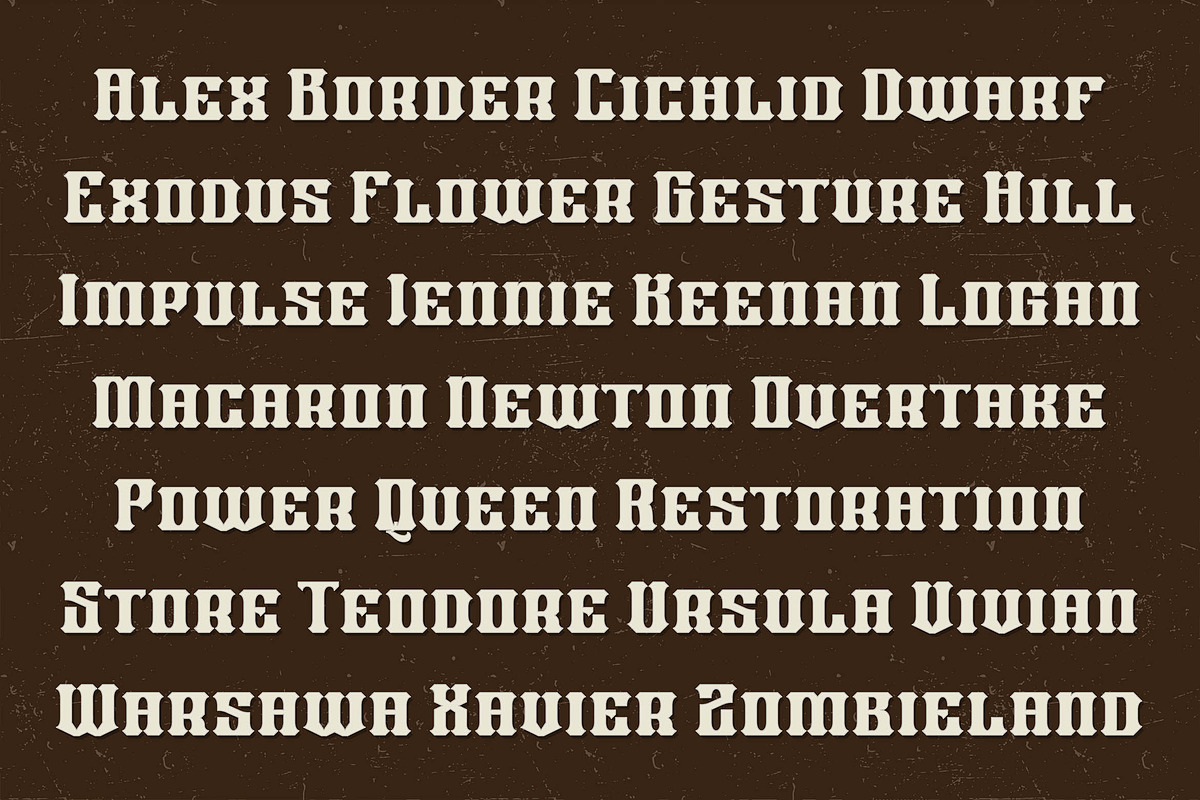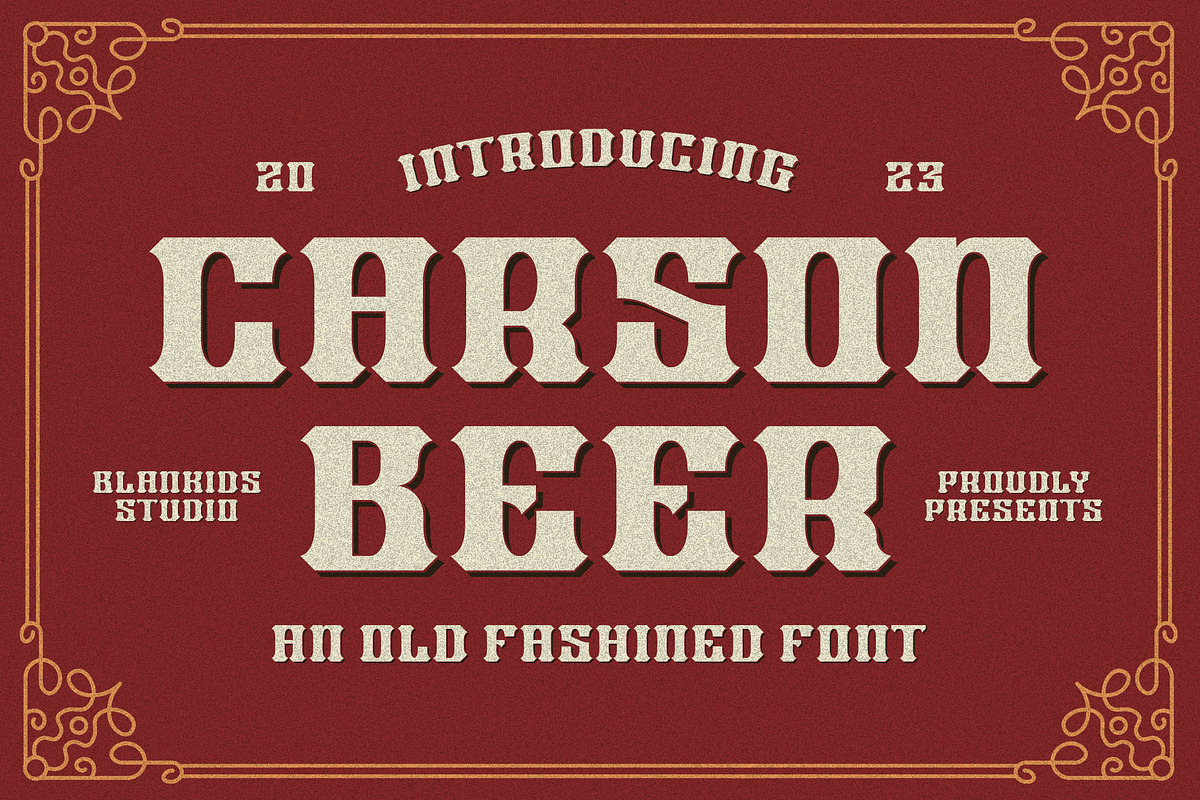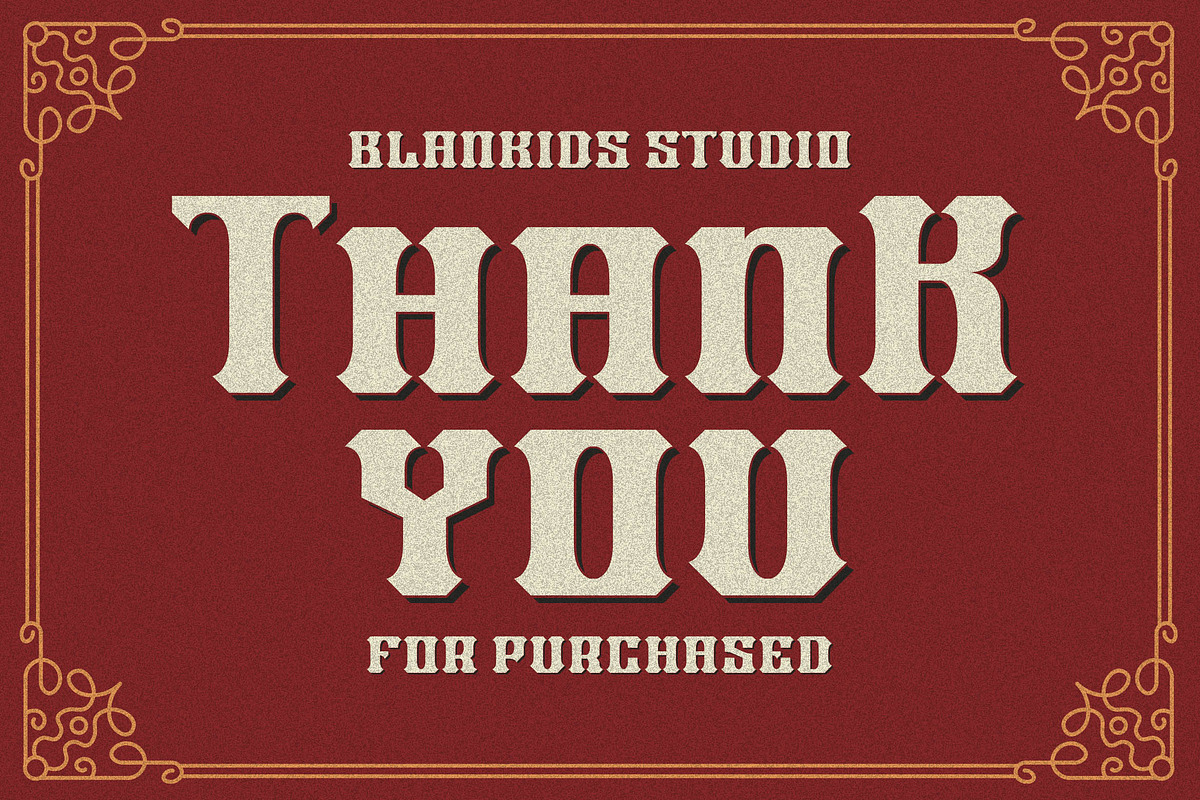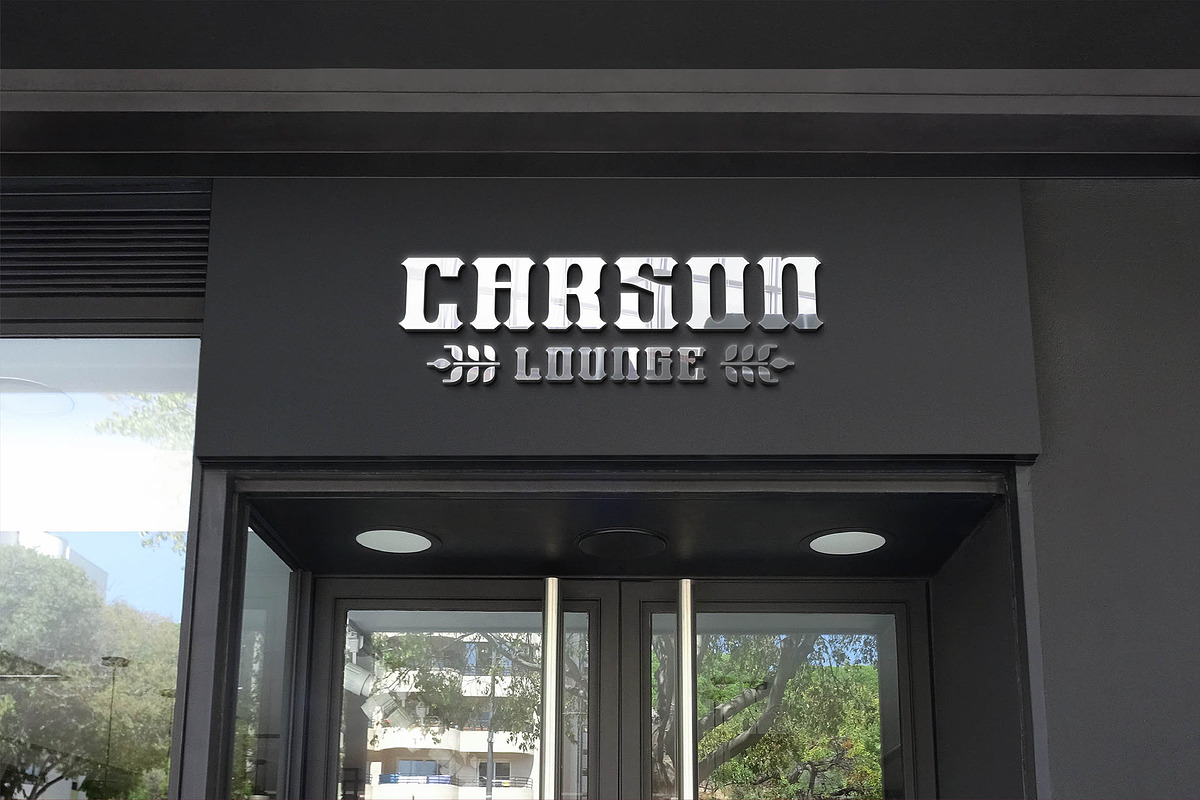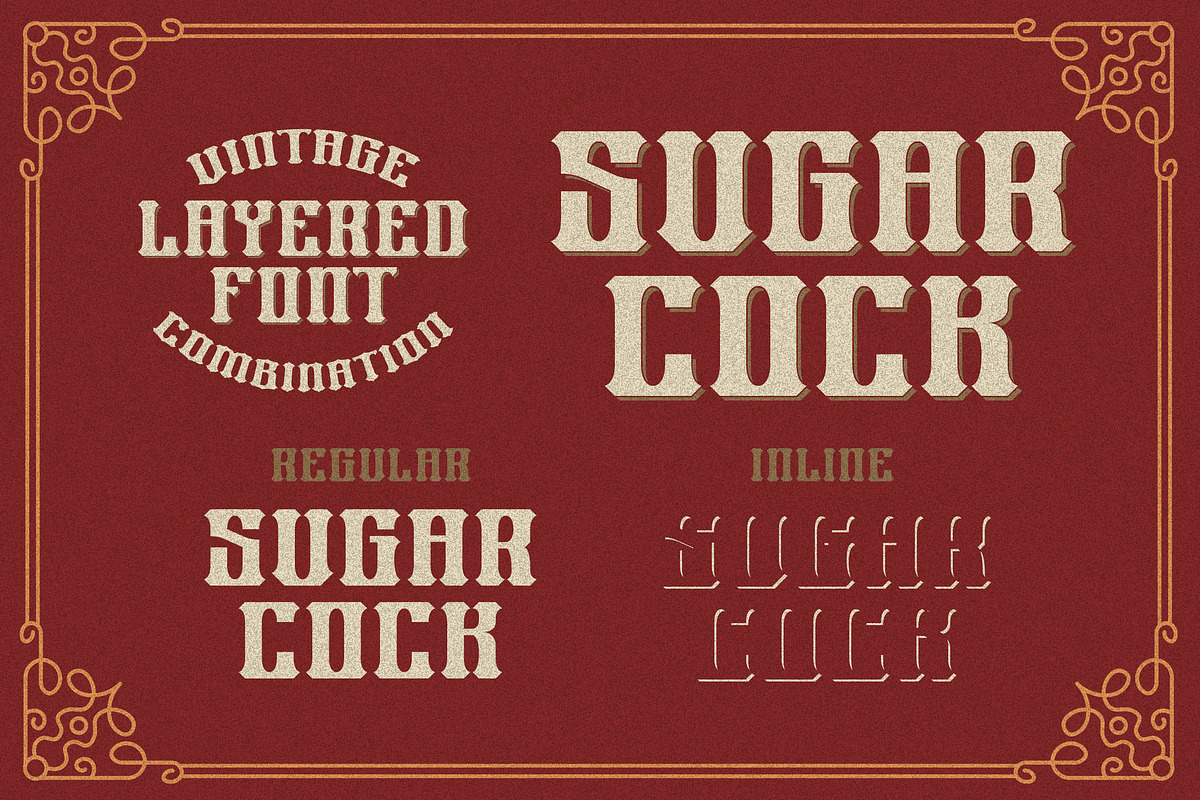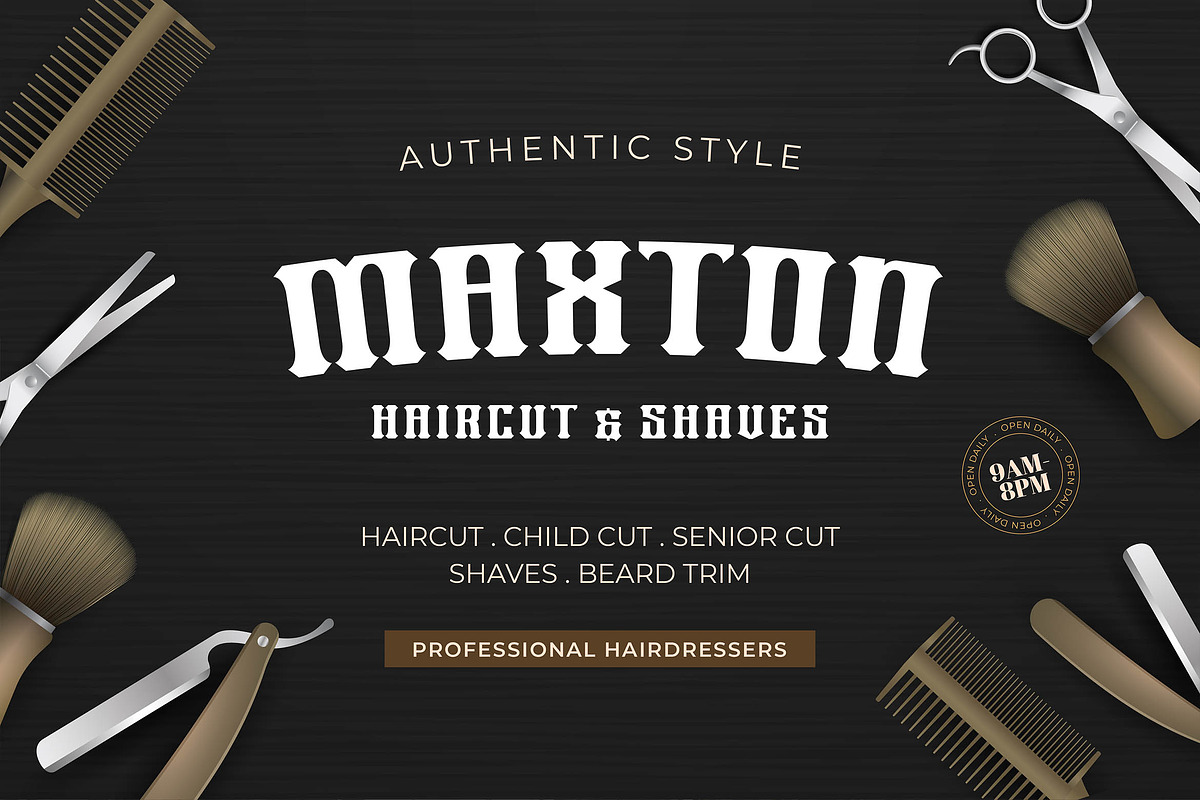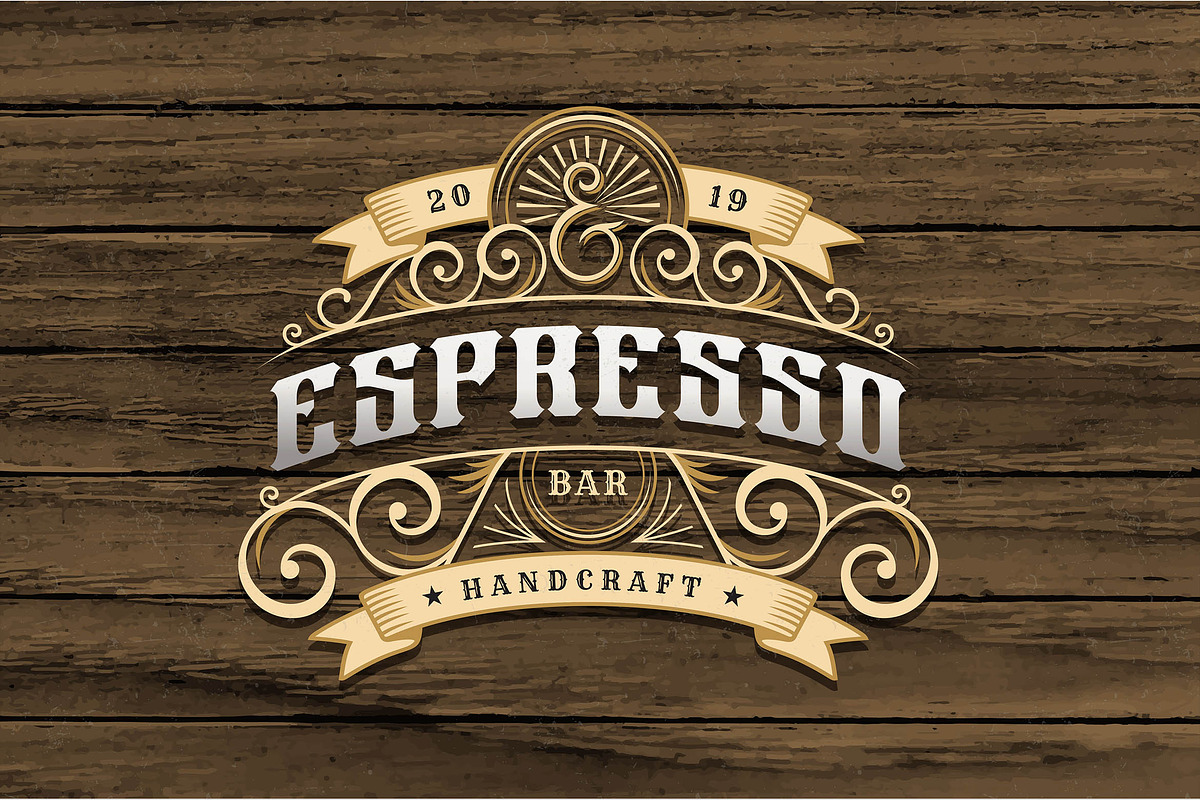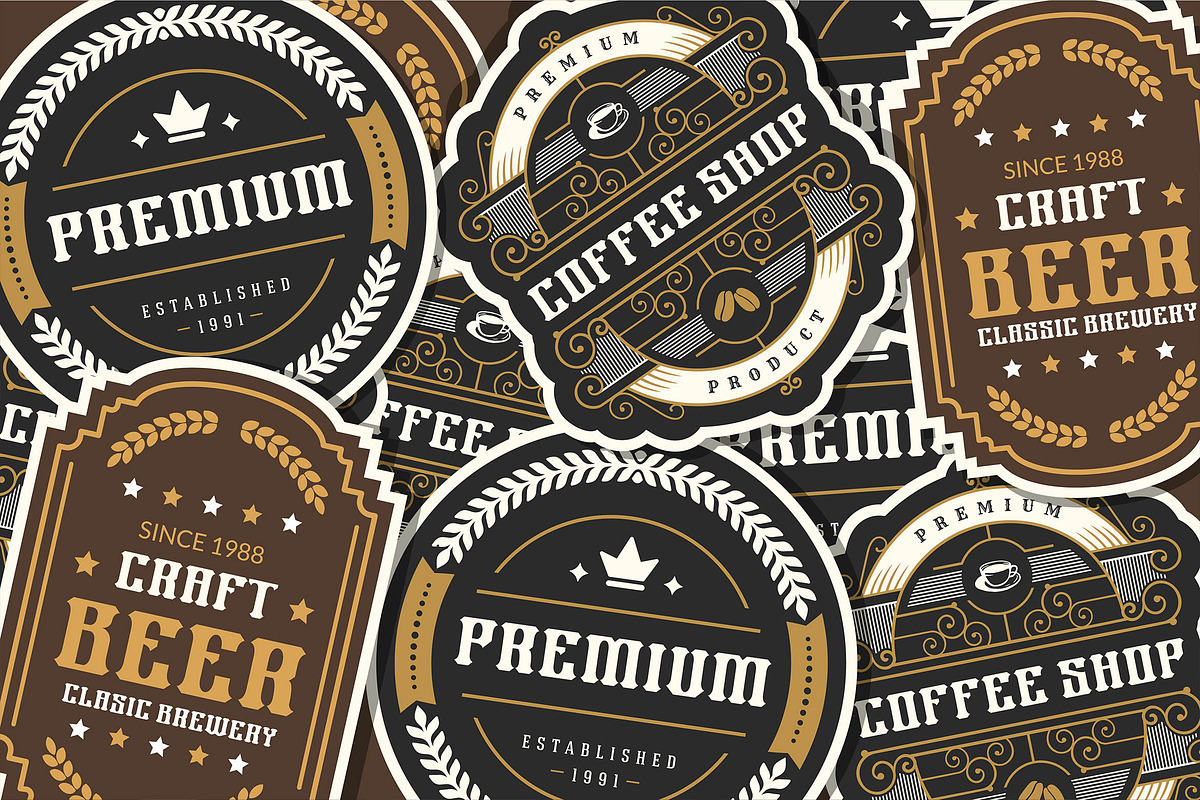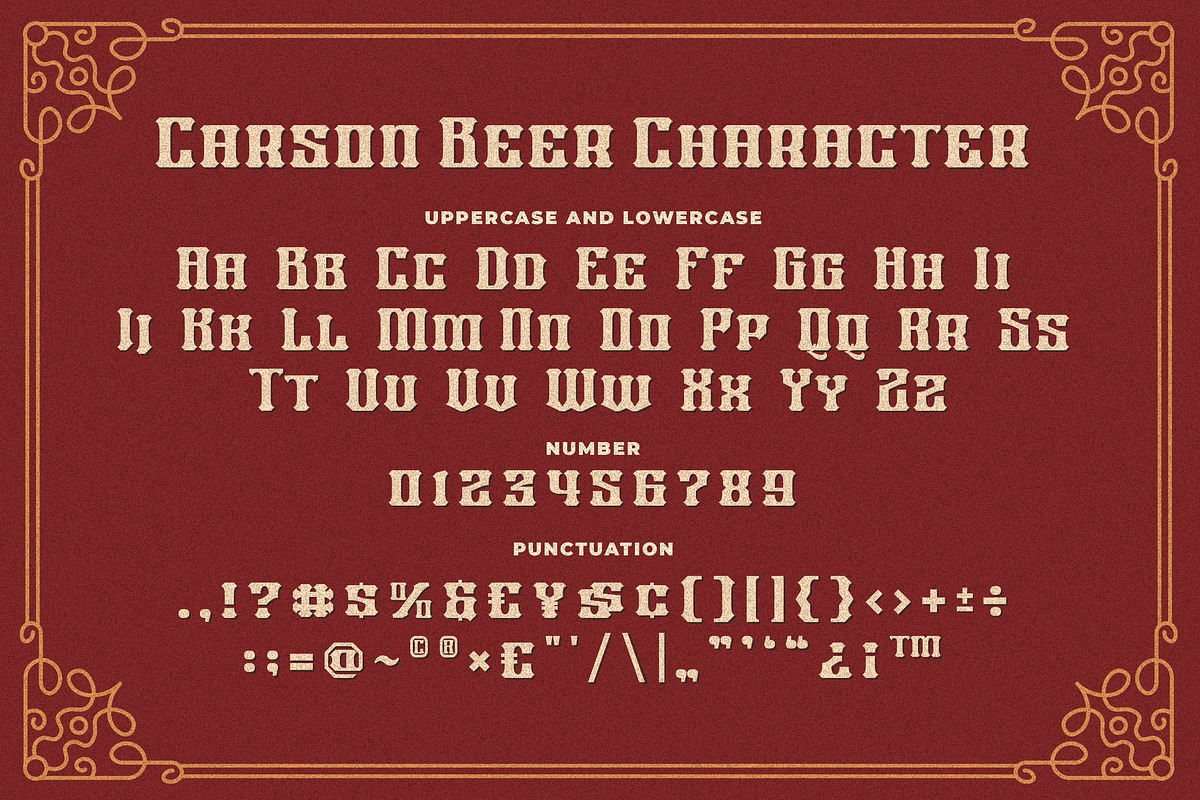
Carson Beer an Old Fashioned Font
Are you looking for a vintage layering display font? Do you want of creating Something that stand out and inspire creativity, imagination, and endless fun? Wait no more, we will give you the best choice.
Carson Beer an Old Fashioned Font
Carson Beer an Old Fashioned Font, Inspiring from old signage typography. This font is perfect for a design that makes it more attractive and playful. made with a very good level of aesthetics making this font suitable for book cover, poster, packging, merchandise, logotype and much more.